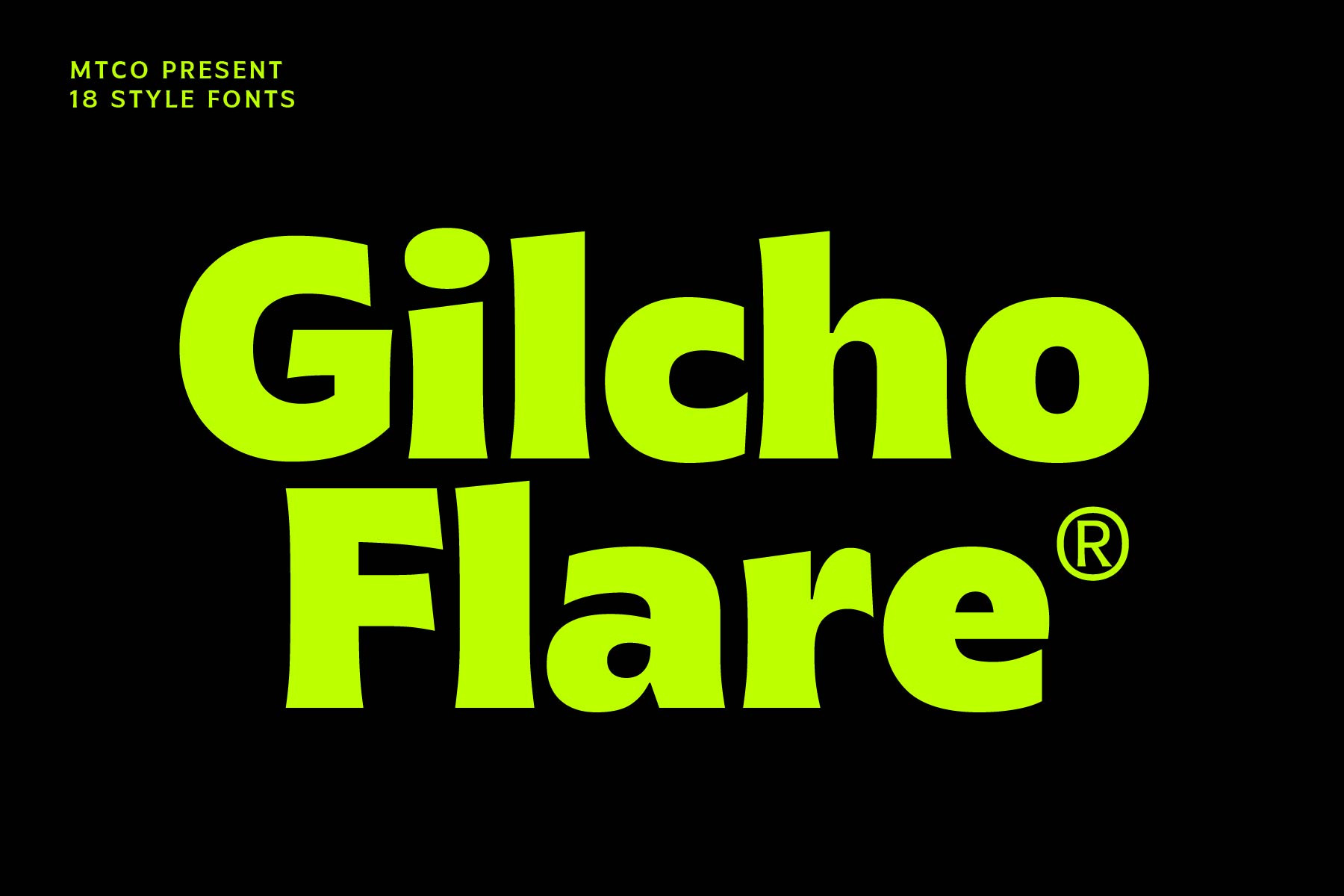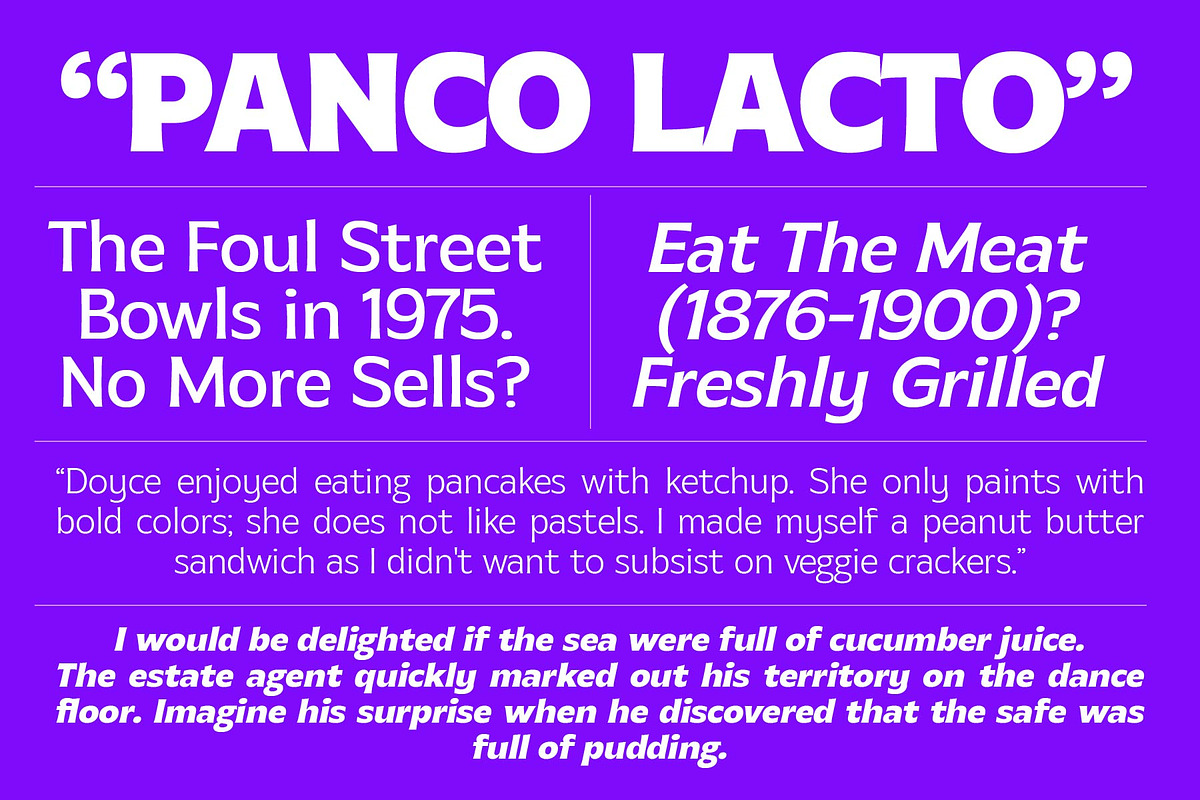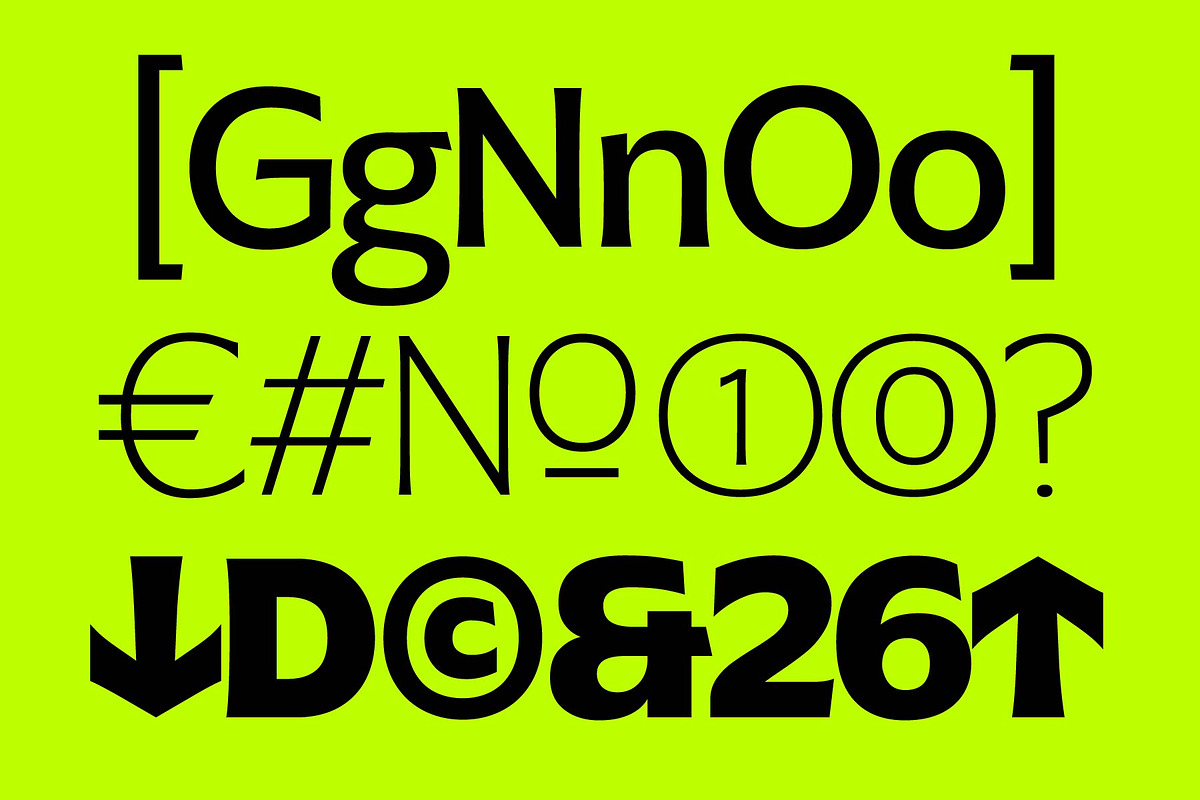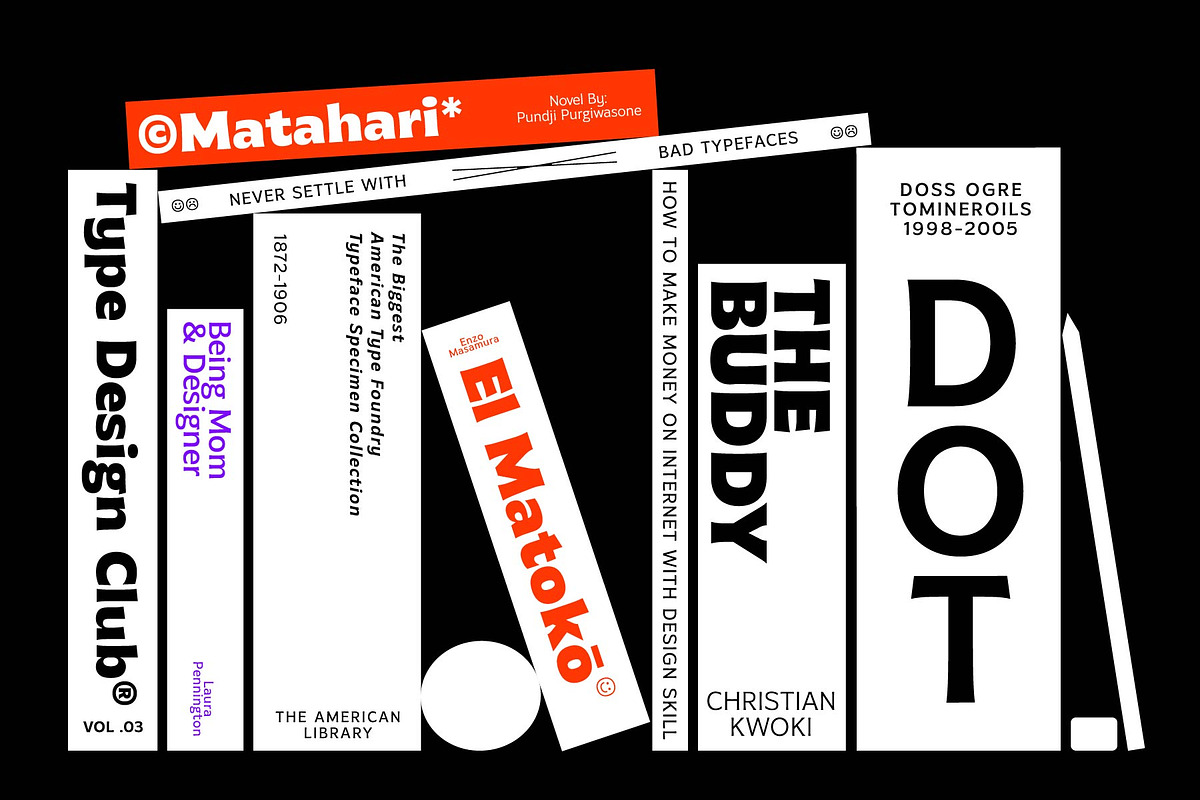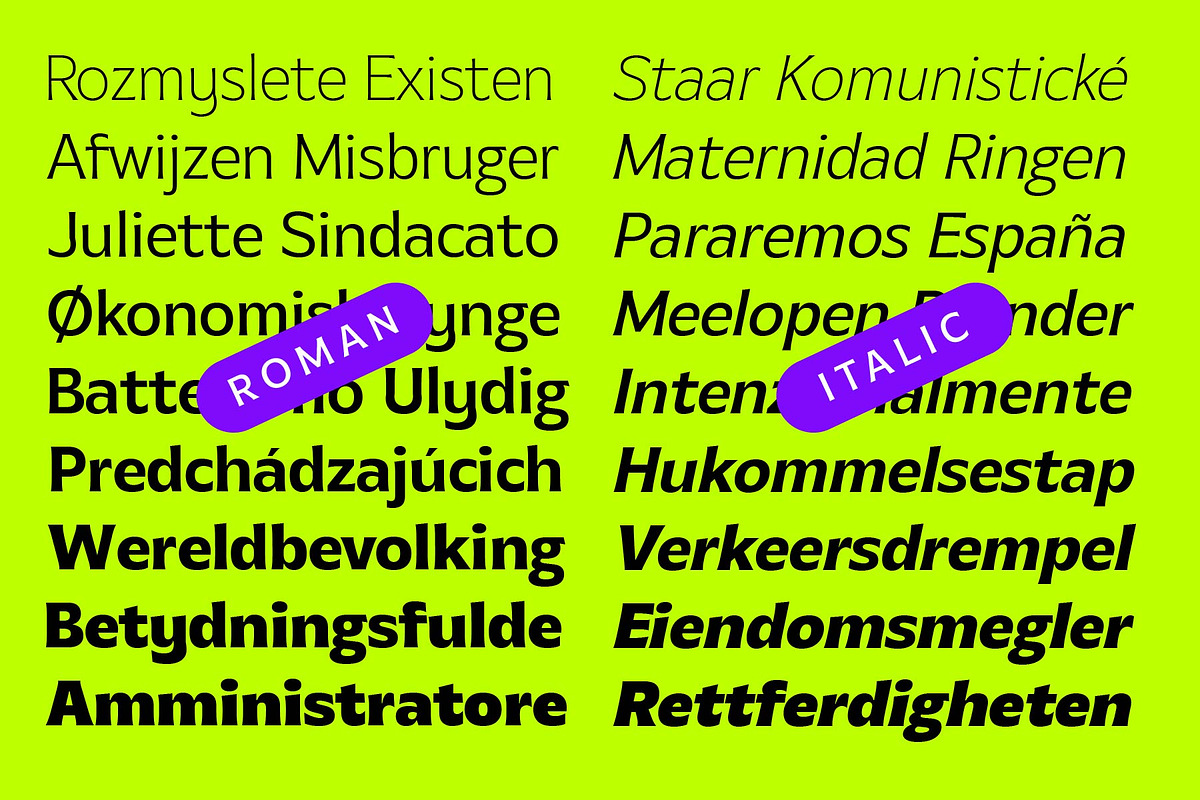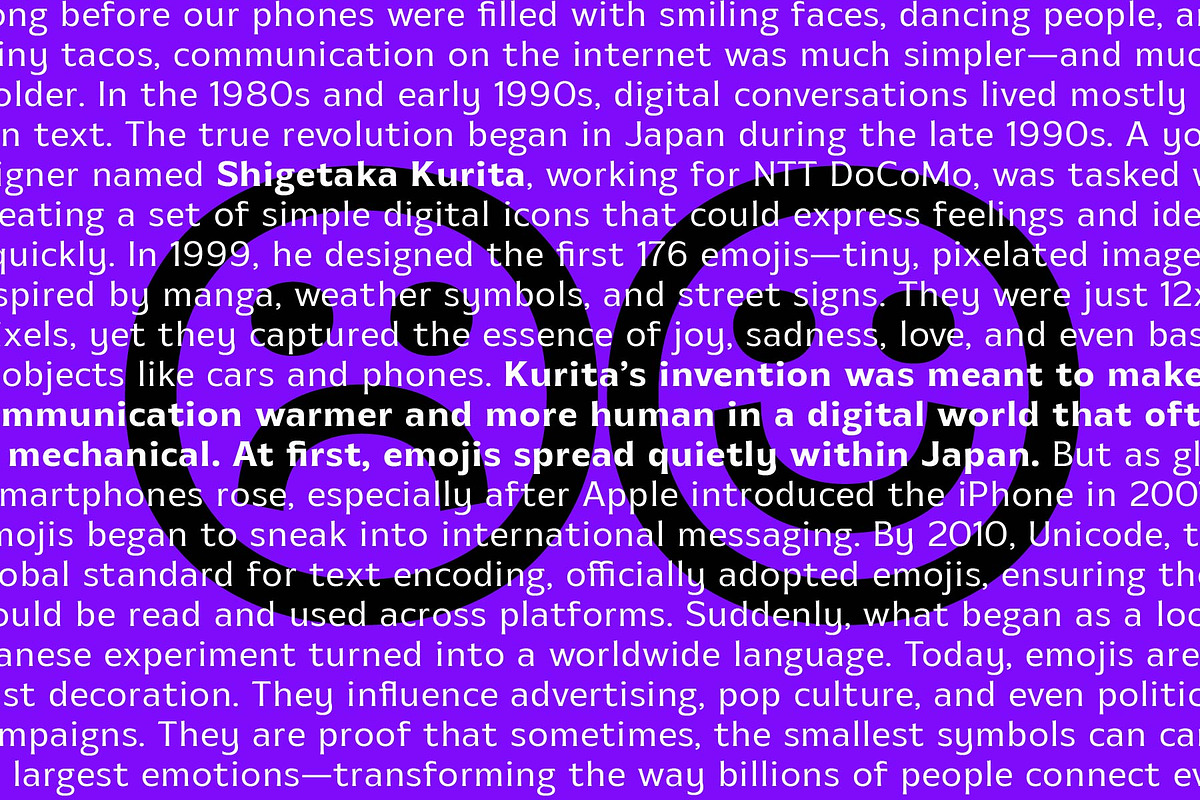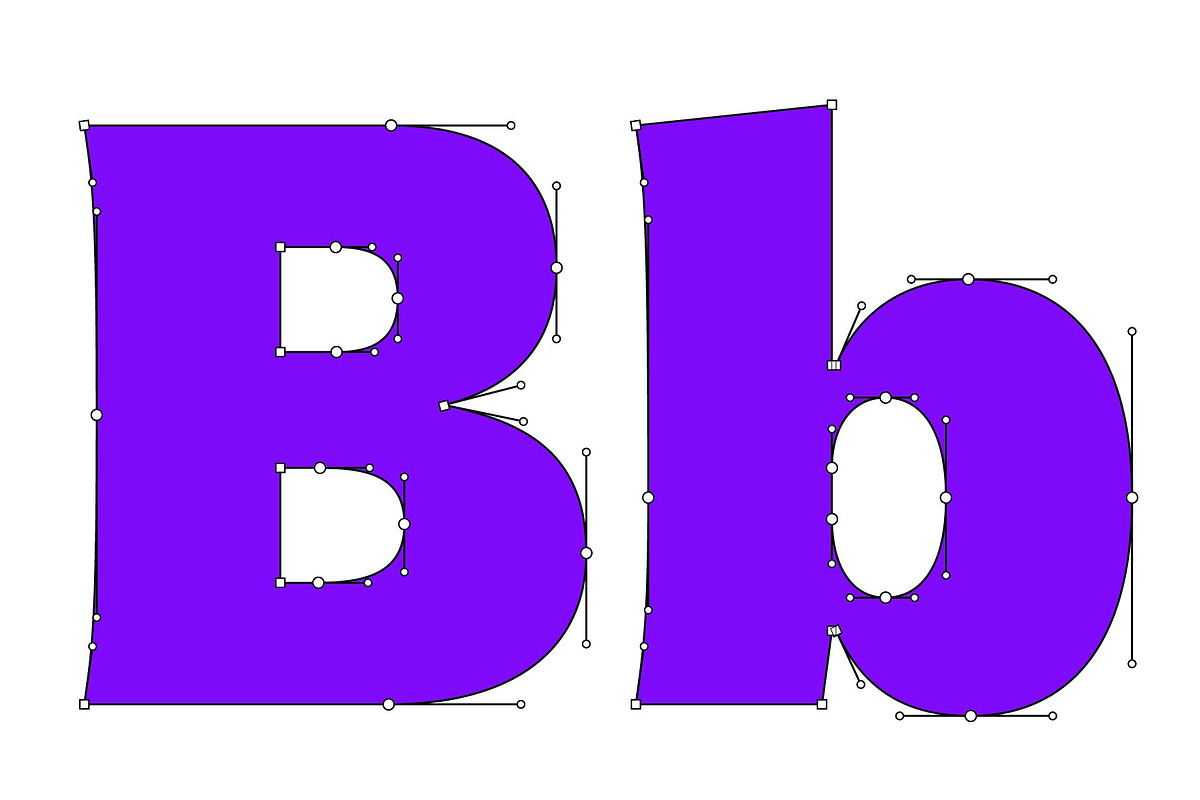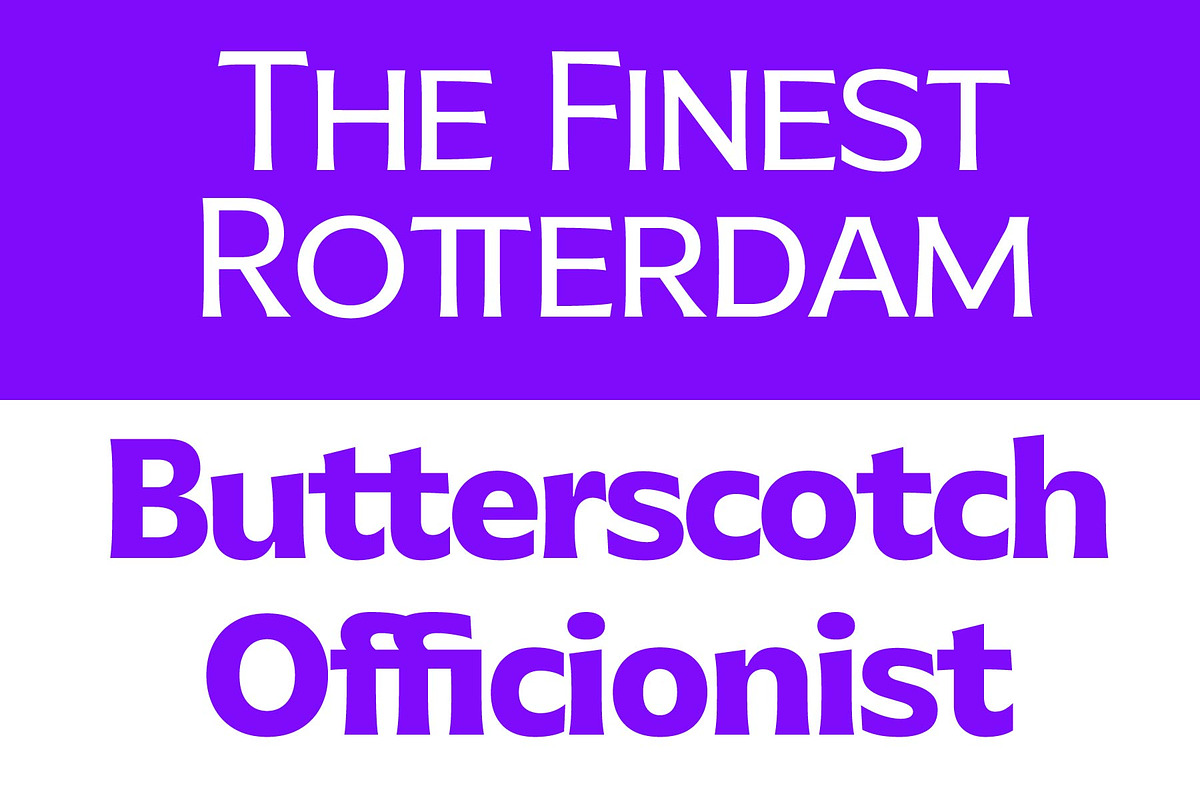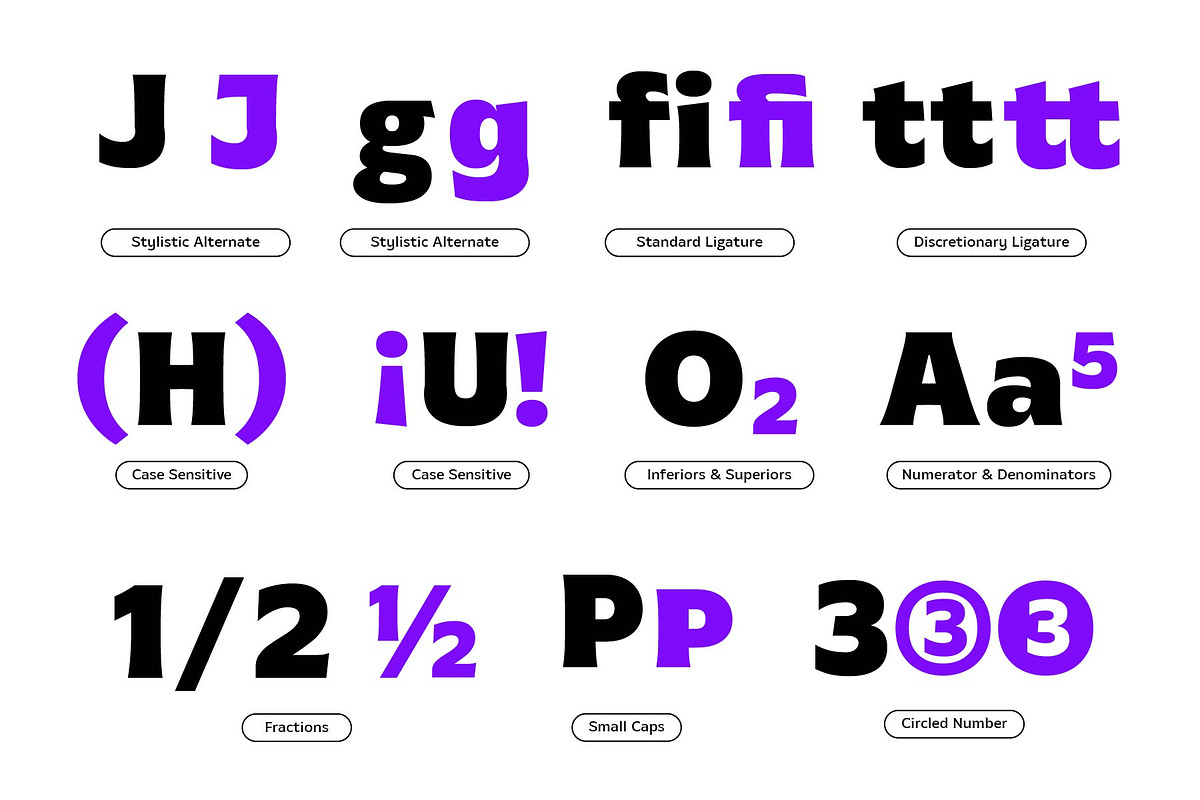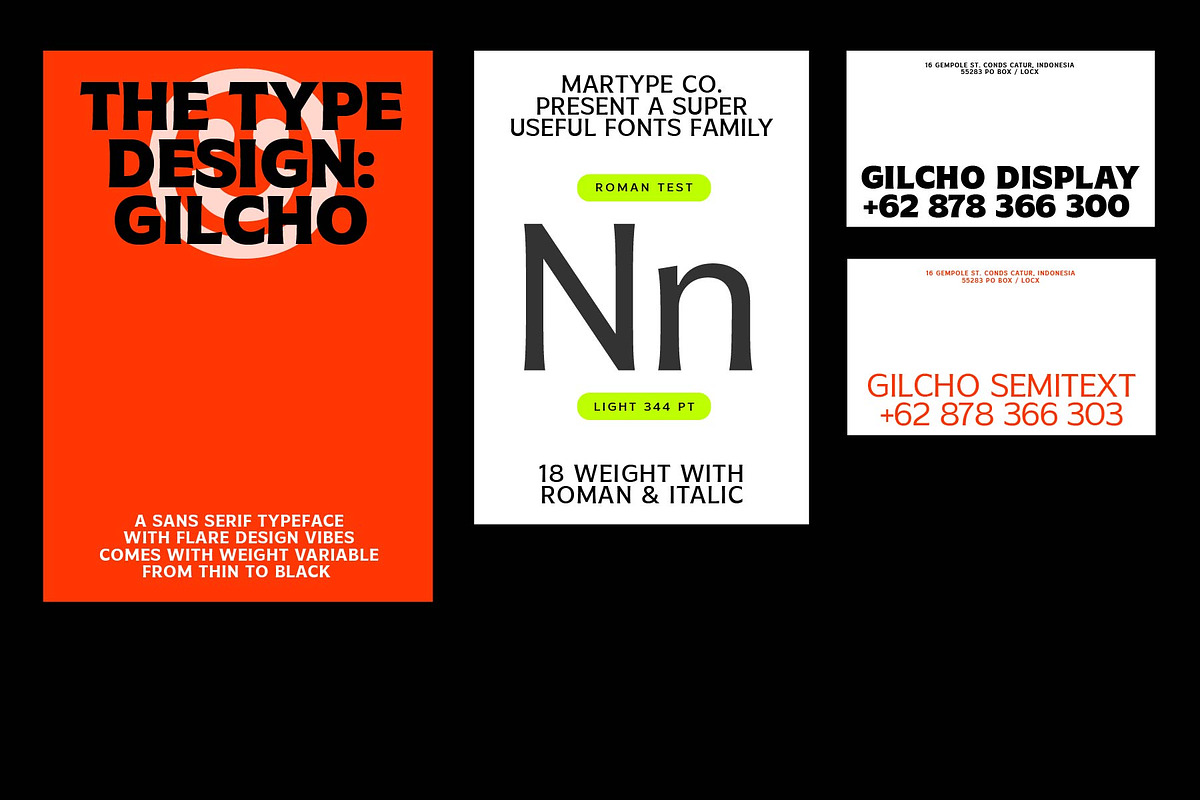
MTC Gilcho Flare - Variable Font
MTC Gilcho Flare - A variable font with multipurpose display and text, comes with 18 weight and 2 styles roman and italic to make it more versatile for your design needs. This is a visual and text communication, the balance between big size (display) and small size (text) this is a concept between the fun and serious vibes to see the deep of graphic design.
Comes with a bunch of features:
- OpenType Features
- SmallCaps
- Circled Number
- Any many more to explore!